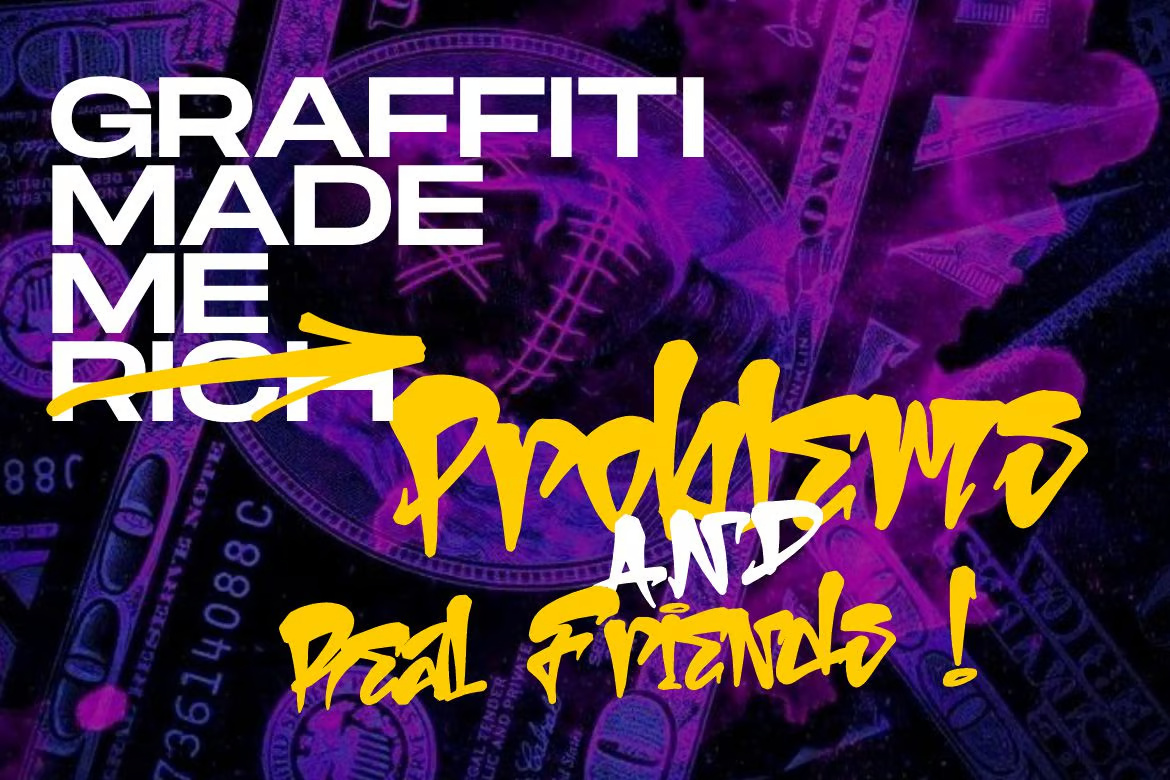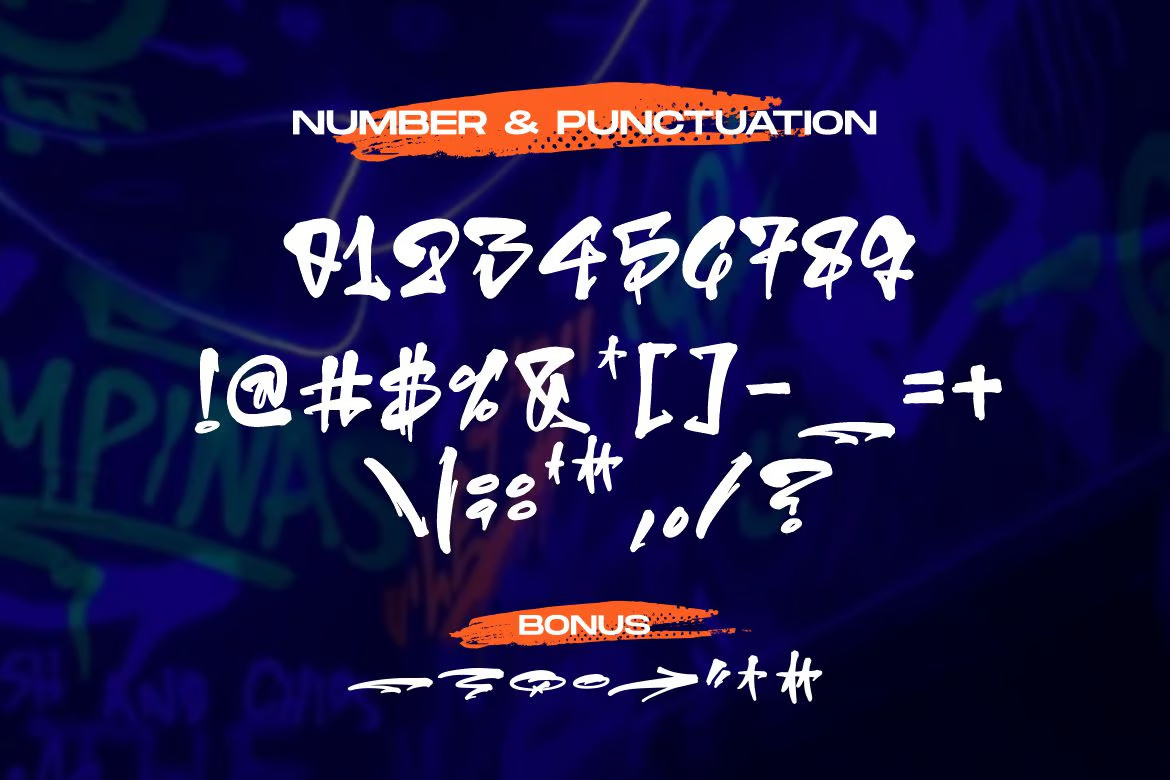
Madison is drawn like a quick marker tag. Strokes are thick, slanted and end in sharp points. The cover outlines the name in white on orange, wrapped in quote marks, over a rundown room. A second image mixes it with a clean sans for a Graffiti made me rich poster.
Best uses for Madison
- Streetwear and skate brands
- Hip hop and rap covers
- Urban event posters
- Social media graphics
- Game titles
Madison is busy, so pair it with a bold, plain sans. Archivo Black works for headlines next to it. Inter handles text.
Madison Decorative Font